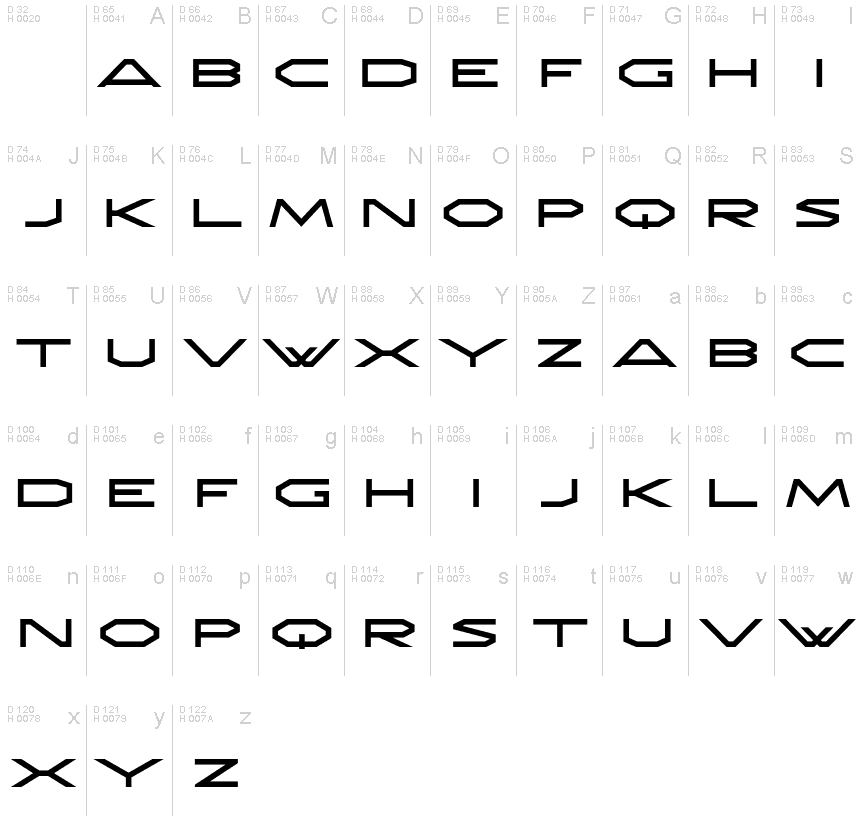
Azanka Regular
Azanka, designed by Vladimir Nikolic, is a contemporary sans serif font with a semi-light weight and extra-expanded width. Its clean and modern aesthetic makes it suitable for a wide range of projects.
Use Azanka to bring a touch of elegance to fashion magazines, create eye-catching headlines for websites, or give your logo designs a sophisticated and professional look. This versatile font can also be used in advertising campaigns, book covers, packaging design, and much more. With Azanka, your creative possibilities are boundless.